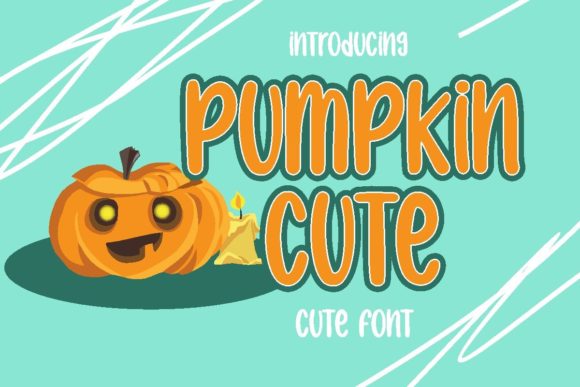
Pumpkin Cute Font: The Perfect Addition to Your Party Invitations and Designs
The world of typography is vast and exciting, with numerous fonts available to convey different emotions and styles. Among these, the Pumpkin Cute font stands out as a chic, playful, and fun handwritten font that can instantly add a touch of youth and joy to any design. In this article, we will explore the features and benefits of the Pumpkin Cute font, and how it can elevate your party invitations, gatherings, and other design projects.
What is Pumpkin Cute Font?
Pumpkin Cute font is a modern, handwritten typeface that exudes a sense of playfulness and charm. Its unique and quirky design makes it perfect for projects that require a touch of whimsy and fun. The font is carefully crafted to provide a friendly and approachable feel, making it suitable for a wide range of applications, from party invitations to social media graphics.
Key Features of Pumpkin Cute Font
- Handwritten style: The Pumpkin Cute font boasts a beautiful, handwritten style that adds a personal touch to any design.
- Playful and fun: The font’s playful and fun design makes it perfect for projects that require a lighthearted and youthful approach.
- Chic and modern: Despite its playful nature, the Pumpkin Cute font has a chic and modern feel that makes it suitable for a wide range of applications.
- Easy to read: The font is designed to be easy to read, making it perfect for body text and headings.
Benefits of Using Pumpkin Cute Font
The Pumpkin Cute font offers numerous benefits for designers, marketers, and anyone looking to add a touch of personality to their projects. Some of the key benefits include:
Why Choose Pumpkin Cute Font?
- Adds a touch of personality: The Pumpkin Cute font allows you to add a unique and playful touch to your designs, setting them apart from more traditional and boring fonts.
- Perfect for party invitations: The font’s playful and fun design makes it perfect for party invitations, gatherings, and other celebratory events.
- Versatile: The Pumpkin Cute font can be used for a wide range of applications, from digital projects to print materials.
- Easily customizable: The font can be easily customized to fit your brand’s style and personality.
How to Use Pumpkin Cute Font in Your Designs
Using the Pumpkin Cute font in your designs is easy and straightforward. Here are some tips to get you started:
Design Tips and Tricks
- Pair with complementary fonts: Pair the Pumpkin Cute font with complementary fonts to create a unique and visually appealing design.
- Use for headings and titles: Use the Pumpkin Cute font for headings and titles to add a touch of personality and whimsy to your designs.
- Experiment with colors: Experiment with different colors and textures to add depth and interest to your designs.
- Keep it simple: Don’t be afraid to keep your design simple and clean, allowing the Pumpkin Cute font to take center stage.
Pumpkin Cute Font in Party Invitations and Gatherings
The Pumpkin Cute font is perfect for party invitations and gatherings, adding a touch of playfulness and fun to your designs. Here are some ideas for using the font in your party invitations and gatherings:
Party Ideas and Inspiration
- Birthday parties: Use the Pumpkin Cute font to create fun and playful birthday party invitations that set the tone for a celebratory event.
- Wedding invitations: Add a touch of whimsy and romance to your wedding invitations with the Pumpkin Cute font.
- Holiday gatherings: Use the Pumpkin Cute font to create festive and fun holiday gathering invitations that get your guests in the mood for celebration.
- Baby showers: The Pumpkin Cute font is perfect for baby shower invitations, adding a touch of sweetness and playfulness to your designs.
In conclusion, the Pumpkin Cute font is a versatile and fun handwritten font that can add a touch of personality and whimsy to any design. Its playful and modern design makes it perfect for party invitations, gatherings, and other celebratory events. With its ease of use and customization options, the Pumpkin Cute font is a great addition to any designer’s toolkit.